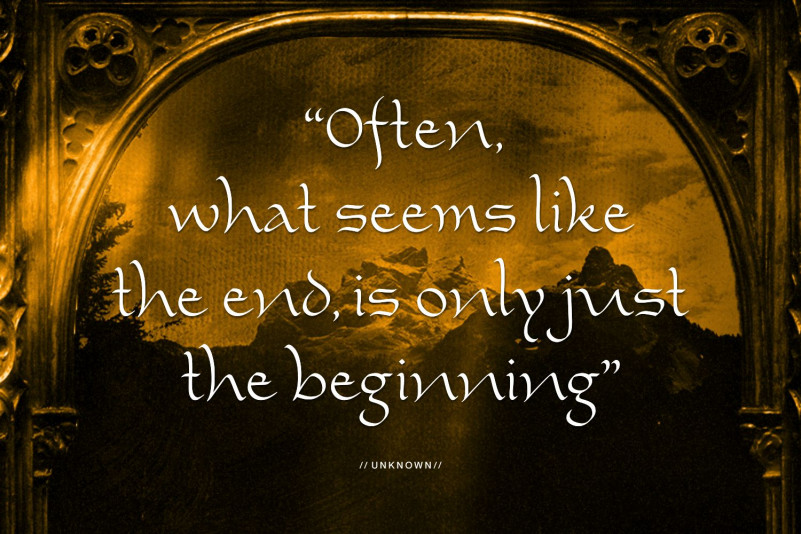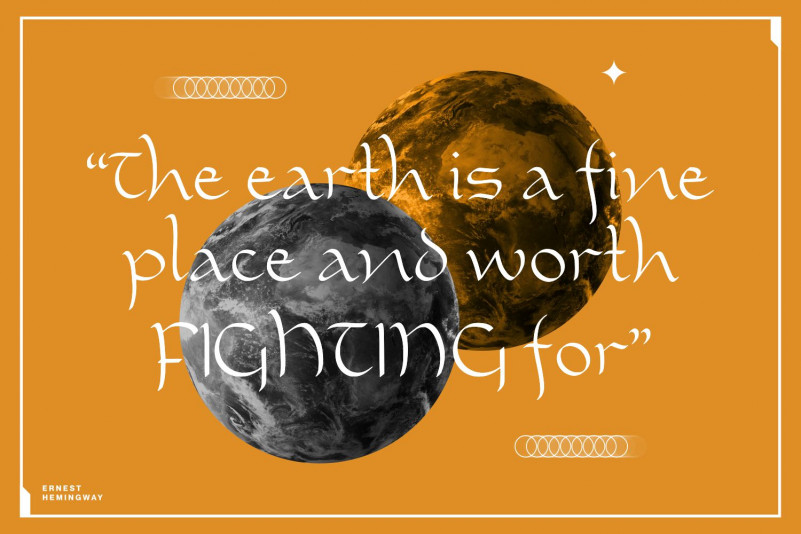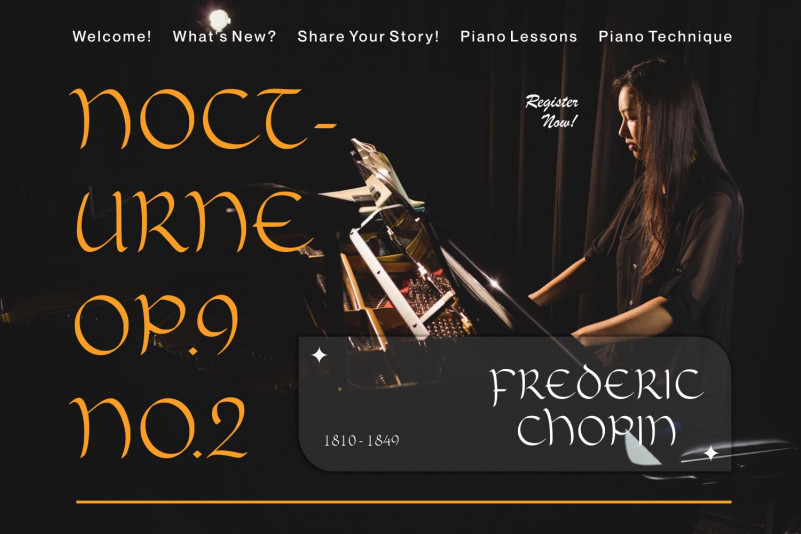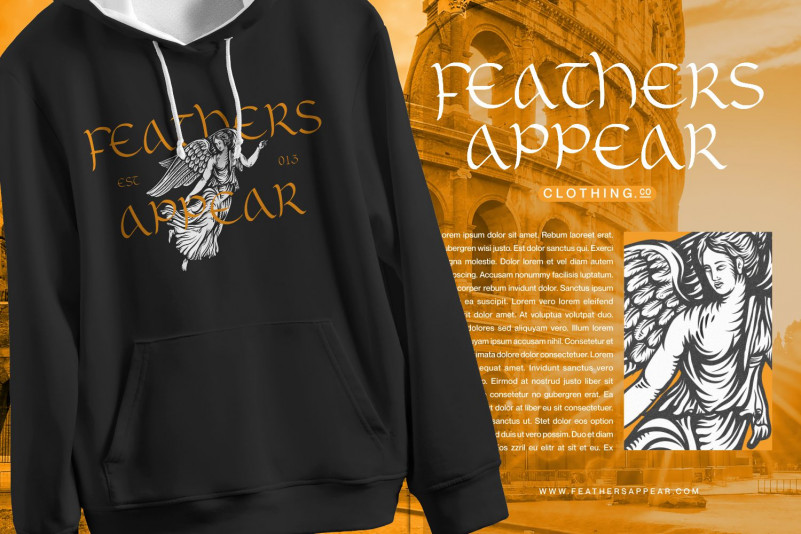
Cayed Font
Cayed Display Font
This is a cool, retro styled and stylish display font. No matter the topic, this font will be an incredibly asset to your fonts’ library, as it has the potential to elevate any creation.